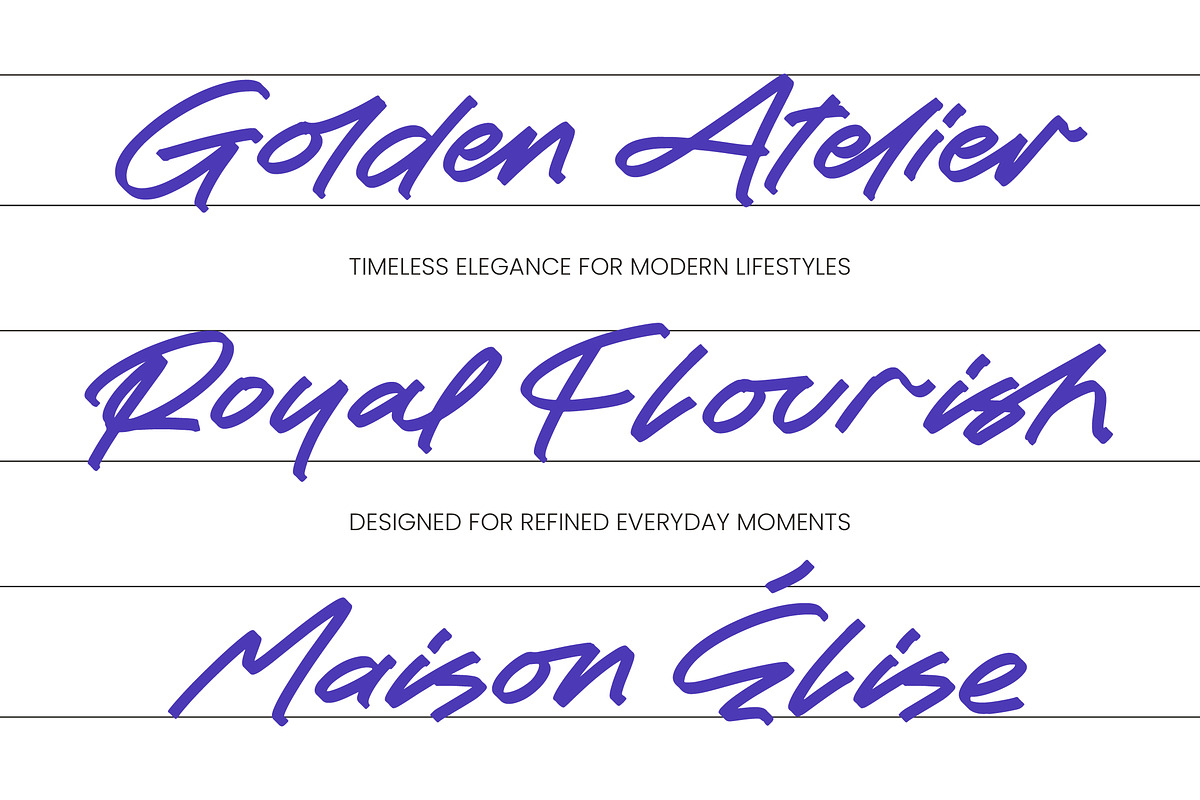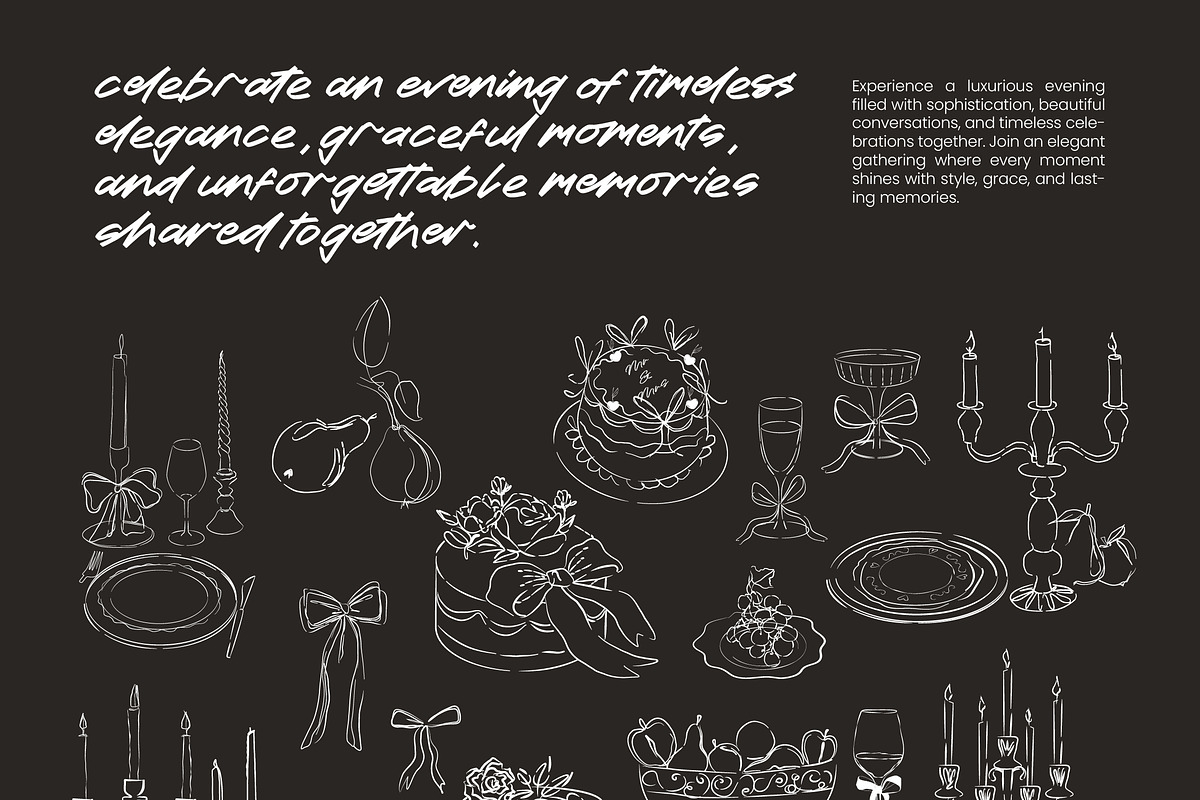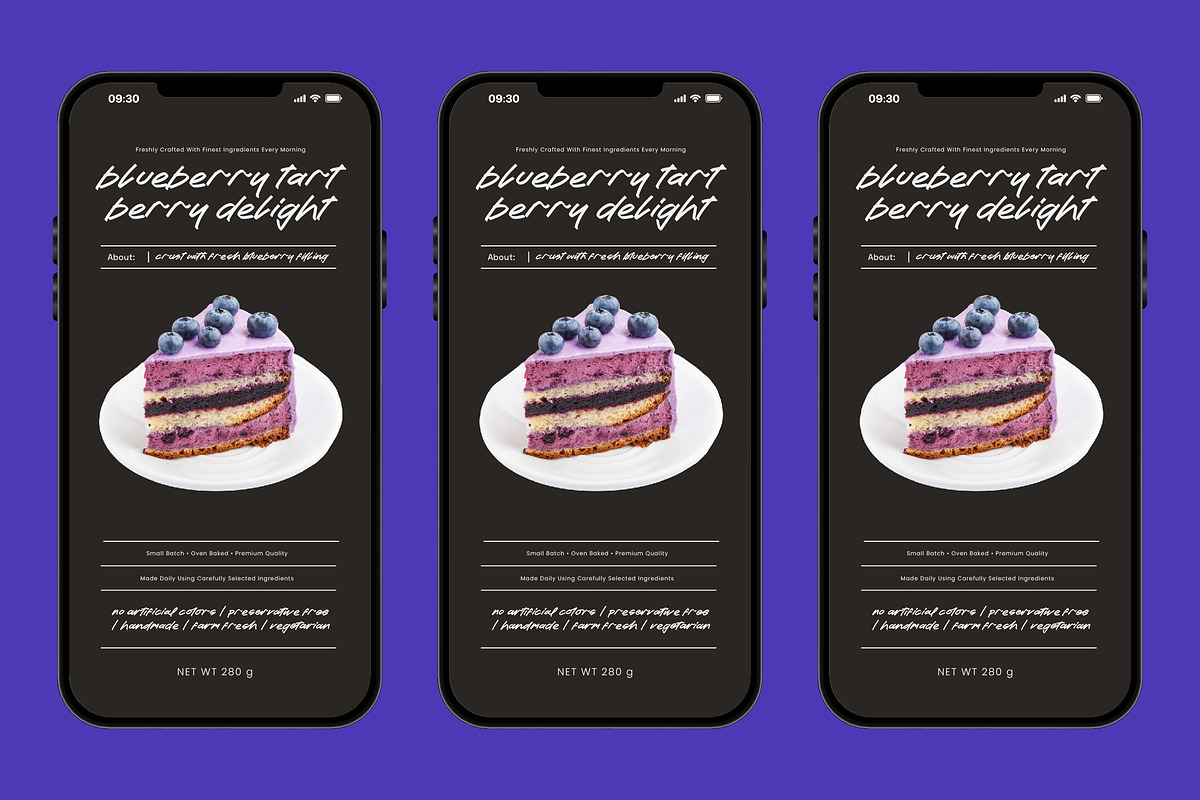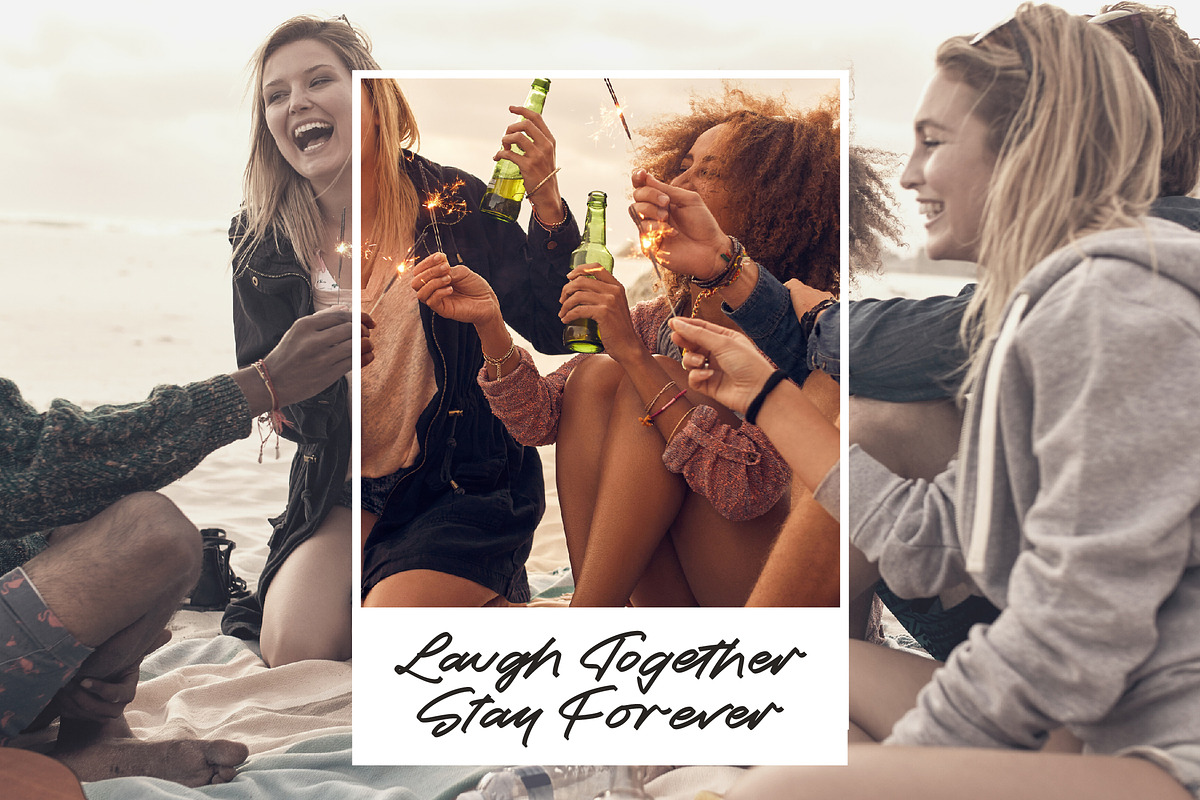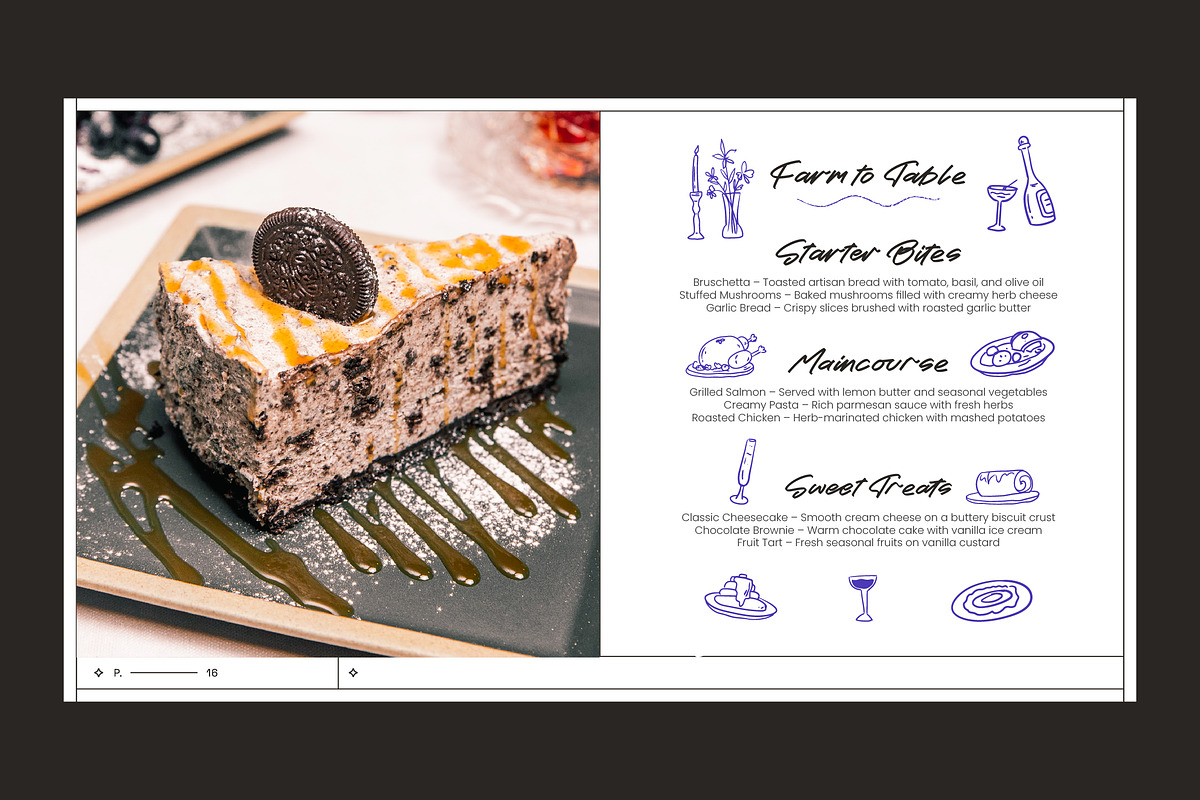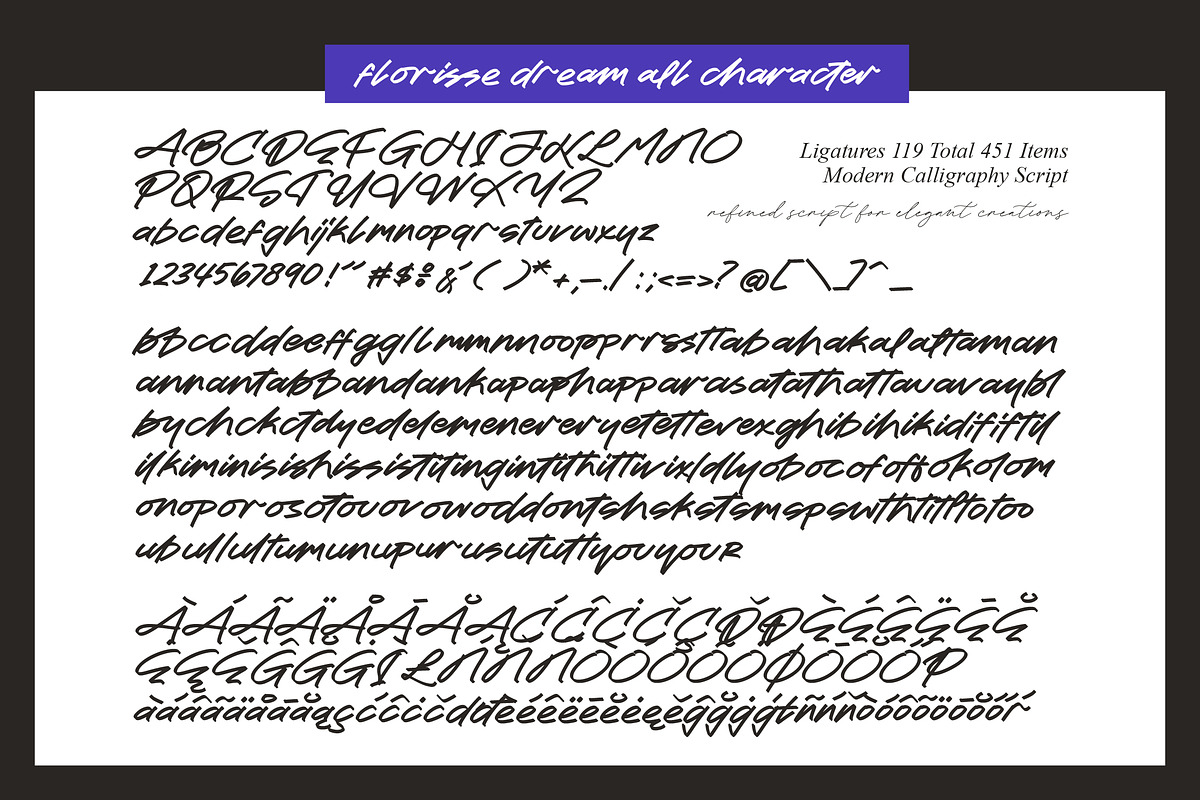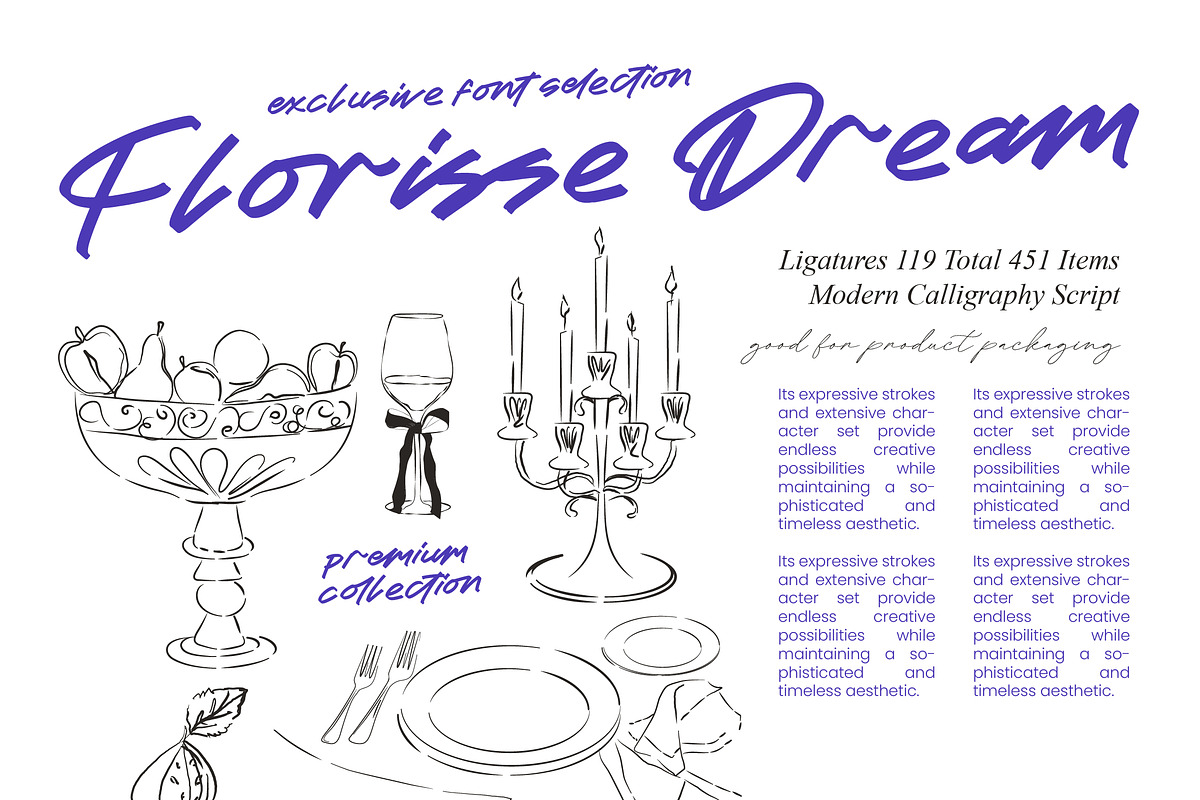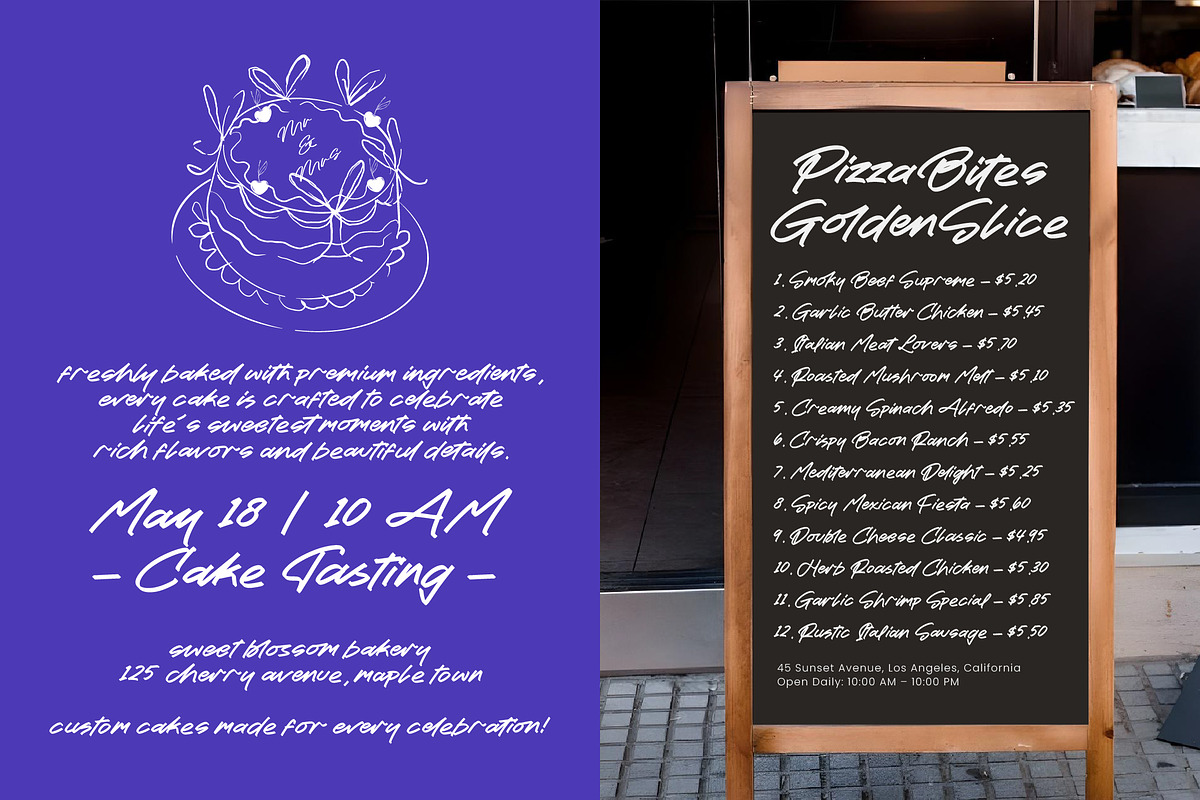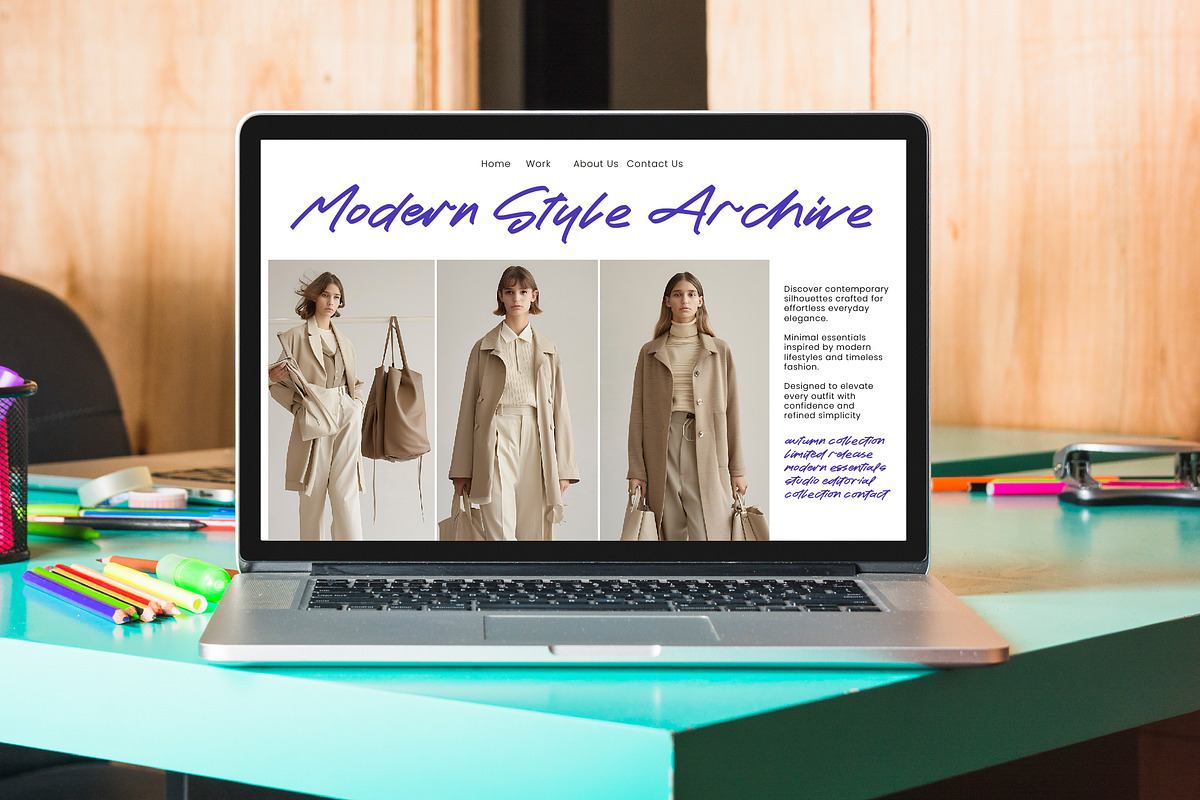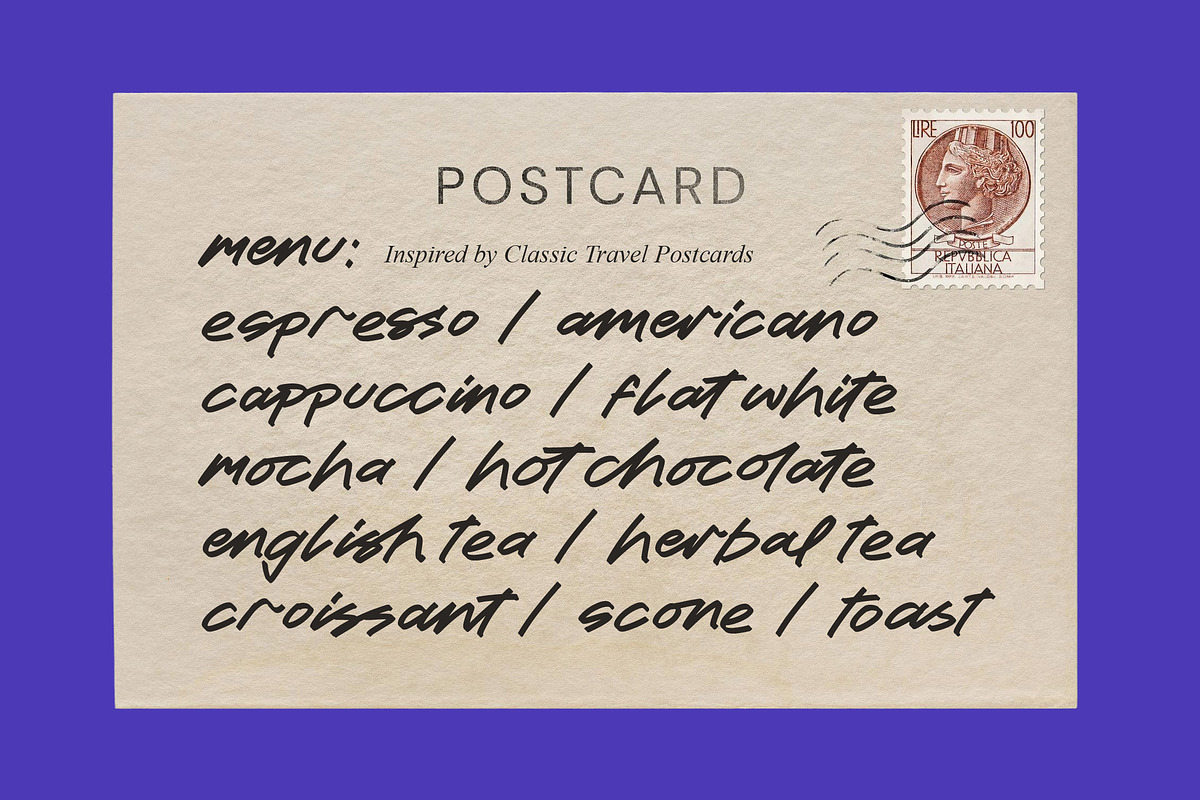
Florisse Dream Modern Calligraphy
Florisse Dream - Modern Calligraphy Script , Elevate your creative projects with the organic elegance of Florisse Dream - Modern Calligraphy Script, a typeface designed to capture the essence of expressive hand-lettering. This premium font features fluid, rhythmic strokes that bridge the gap between contemporary sophistication and artistic flair. Its sophisticated aesthetic ensures that every word conveys a sense of bespoke craftsmanship, making it a standout choice for designers seeking a human touch in their digital compositions.
Unlock endless possibilities in luxury branding and product packaging with the versatile charm of Florisse Dream - Modern Calligraphy Script. This script is perfect for high-end editorial design, wedding invitations, and fashion lookbooks where a chic, handwritten feel is essential. Whether you are crafting a unique logo identity or designing premium lifestyle labels, its dynamic ligatures and organic flow provide a timeless appeal that resonates with discerning audiences.
Global accessibility is at the heart of this design, ensuring your message reaches every corner of the world with uncompromising style. With its extensive multilingual support, Florisse Dream - Modern Calligraphy Script adapts seamlessly across global markets, making it incredibly versatile for international projects and cross-cultural branding efforts. This comprehensive character set guarantees that your visual storytelling remains consistent and impactful, regardless of the linguistic requirements of your international clientele.
Invest in a typographic masterpiece that combines functional versatility with distinctive character to propel your brand forward. Florisse Dream - Modern Calligraphy Script is more than just a font; it is a strategic design asset that enhances visual hierarchy and brand recognition. By integrating this refined calligraphy script into your workflow, you ensure a polished, professional finish that effectively captures attention and secures a competitive edge in today's saturated design landscape.